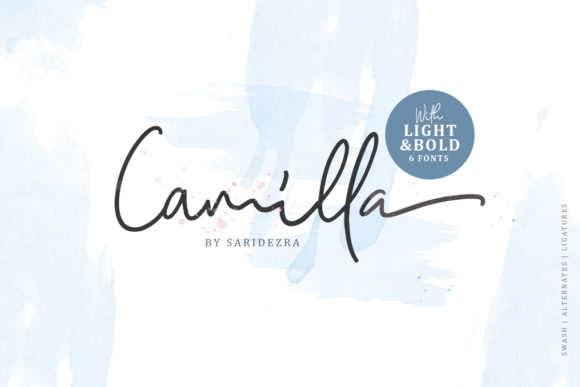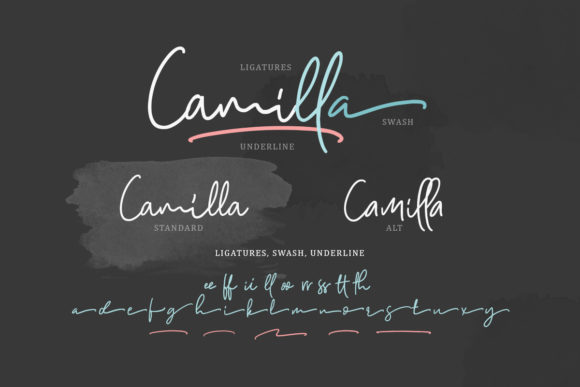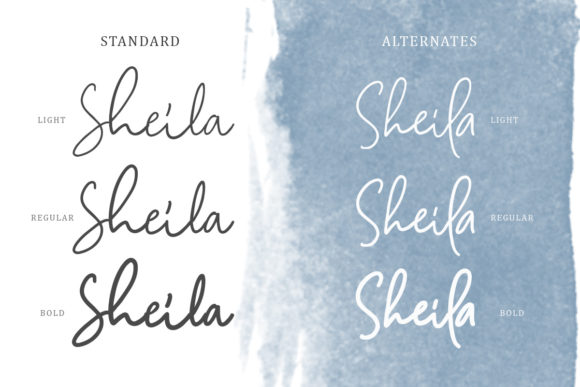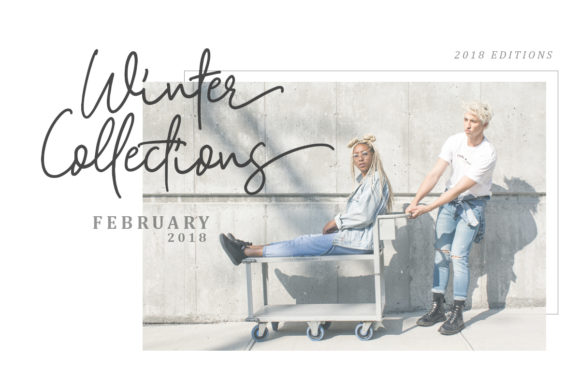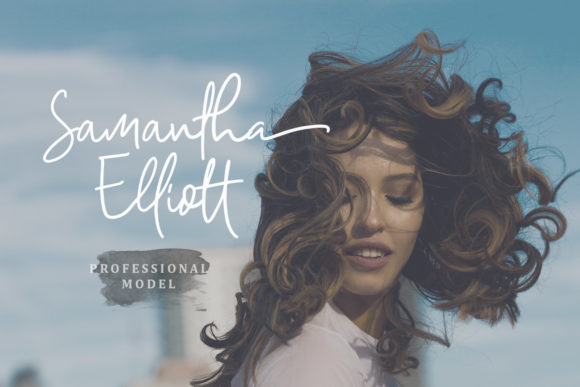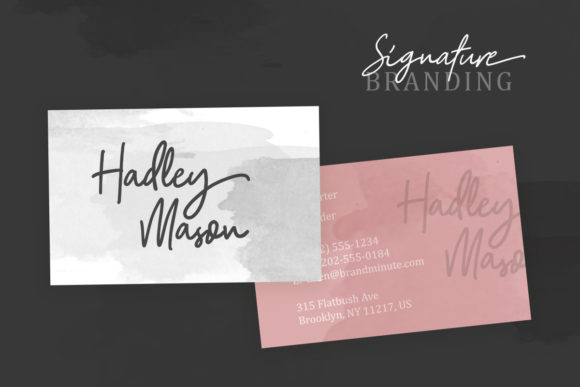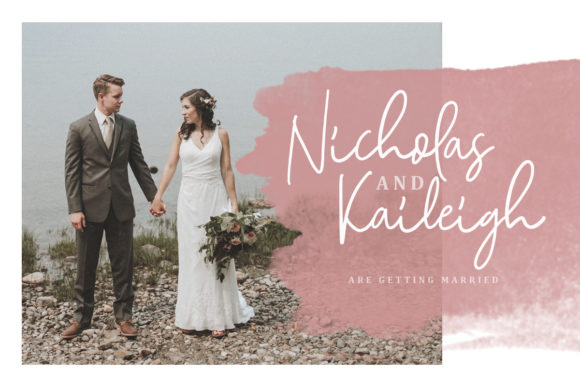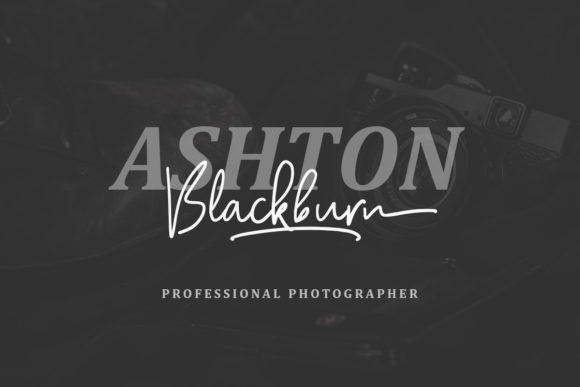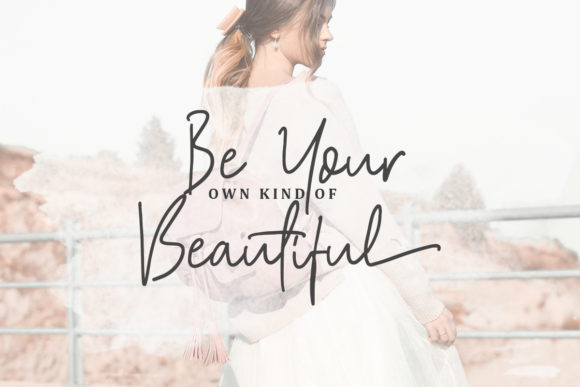
Camilla Family Font
About Camilla Family Font
The Camilla is a modern script family. It includes 6 styles which can be combined perfectly.
It can be used for logos, branding, fashion designs, quotes, and much more!